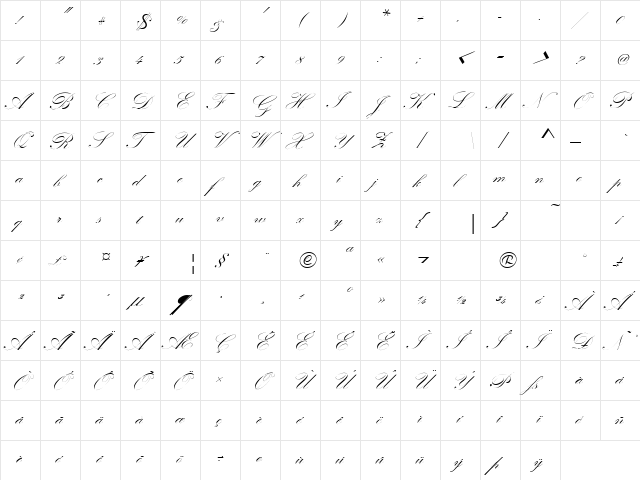
CheckQuillScriptSSK Regular Font Preview
CheckQuillScriptSSK Regular
CheckQuillScriptSSK Regular Font Details
Design Context for CheckQuillScriptSSK Typeface
CheckQuillScriptSSK brings a calligraphic fluidity to the page — its connecting strokes and expressive curves give it an unmistakably human quality.